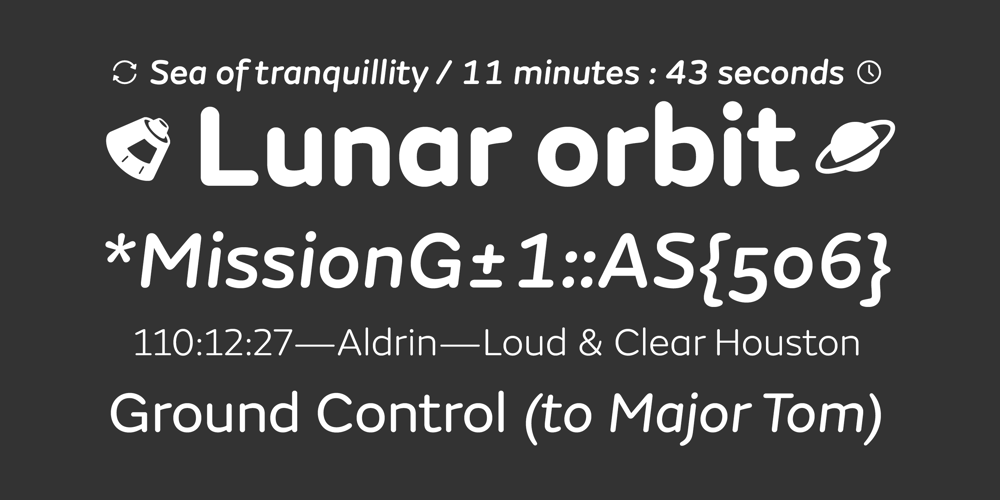
FS Aldrin Font Family was designed by Phil Garnham and published by Fontsmith. FS Aldrin contains 13 styles and family package options. Elegant and roundHaving harboured a desire for a rounded font within the Fontsmith library for some time, Phil Garnham recognised that FS Emeric offered the perfect skeleton around which to design it.Most new rounded fonts rely on scripts or other in-app automation to form their characters. For all their warmth and approachability, they too often conjure images of jelly sweets and sausages. Not so FS Aldrin, where every curve and transition has been crafted by hand, giving a distinctive look and elegant feel.Design highlightsFS Aldrin enjoys wide-open ‘lunar’ counters and soft, tube-like terminals. These improve legibility, especially on backlit signage and screens. The open proportions and circular strokes are juxtaposed against a more serious technical aspect that exists within each counter shape.The lighter weights feel precise and efficient, perfect for notes on blueprints or technical drawings. The heavy weights are equally crafted but more playful by their rotund nature, and are perfect for strong headlines or packaging projects. UI iconsA suite of 268 icons complement the typeface beautifully and extend the design language in all directions. They cover a range of commonly used applications and themes ranging from ecommerce to weather, and also serve as a solid starting point for a bespoke brand icon set or UI.In addition, born of FS Aldrin’s astronomical theme and playful nature is a special collection of space-themed icons, including rockets, shuttles and lunar modules (hint: if you type the word BUZZ with ligatures enabled, an astronaut appears).Earth to BuzzBuzz Aldrin was the pilot of Apollo 11’s lunar module, the one that put man on The Moon for the very first time. Early on in the project’s life, FS Aldrin emerged as the ideal hook on which to hang the font’s space helmet (hardly surprising given Phil’s fascination with space travel and astronomy).An approach was made to Buzz’s management to see if he would sanction the association. Not only was the great man himself happy to see his name on a typeface, he also asked to use it in his upcoming keynote talks, book launches and online projects.